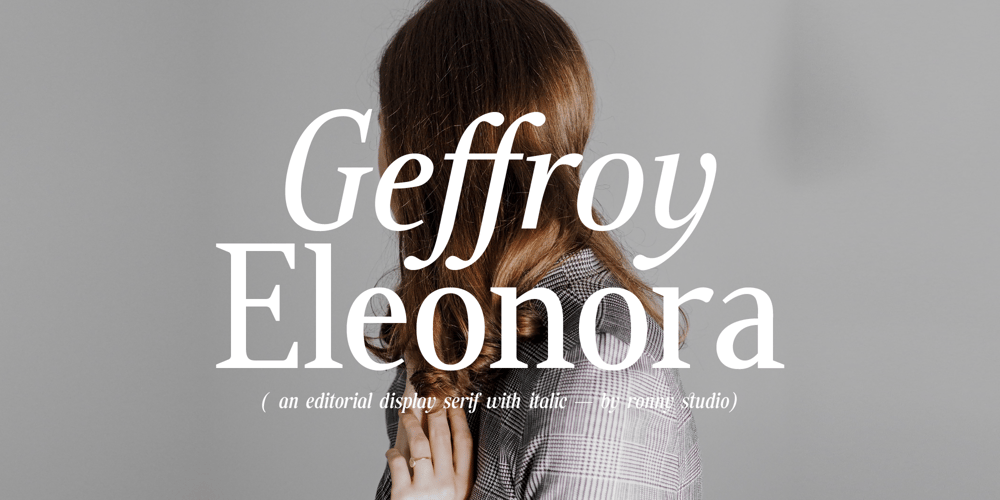
Geffroy Eleonora Font Family was designed by Rony Rizki Jaya and published by Ronny Studio. Geffroy Eleonora contains 2 styles and family package options. Geffroy Eleonora Serif is a classy eighties magazine-inspired font – with complementary italic versions. Both come in two versions one with more contrast and sharper than the other. In true Eighties style. This font looks premium and is very suitable for your design needs such as invitations, labels, logos, magazines, books, greeting / wedding cards, packaging, fashion, make up, stationery, novels, labels or any type of advertising purpose.Features : Lowercase & Uppercase numbers and punctuation multilingual ligatures alternates PUA encoded Please contact us if you have any questions. Enjoy Crafting and thanks for supporting us! :)Thank you